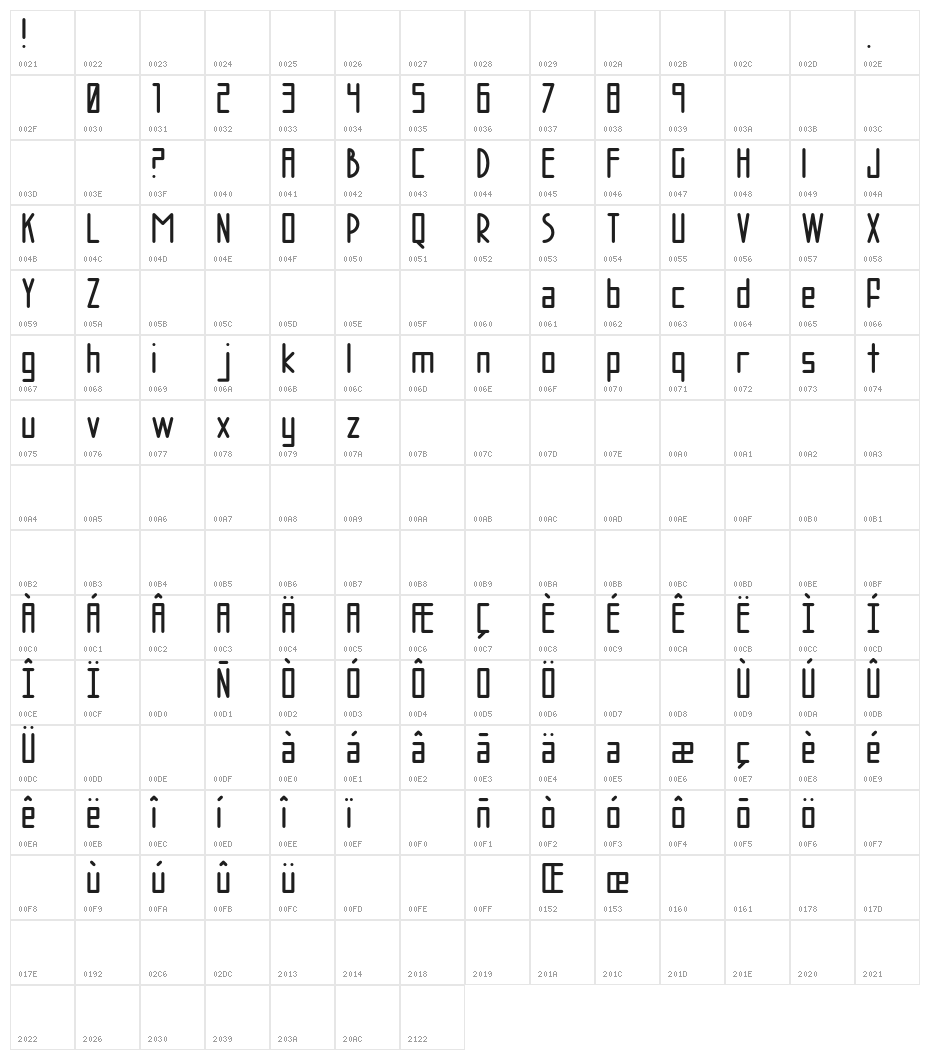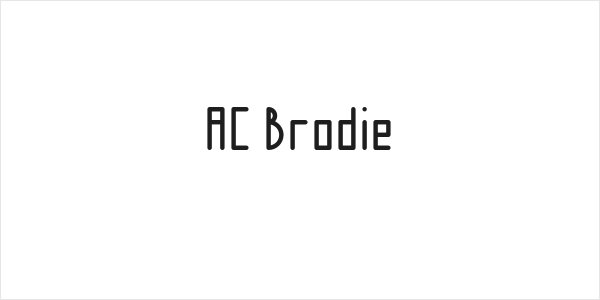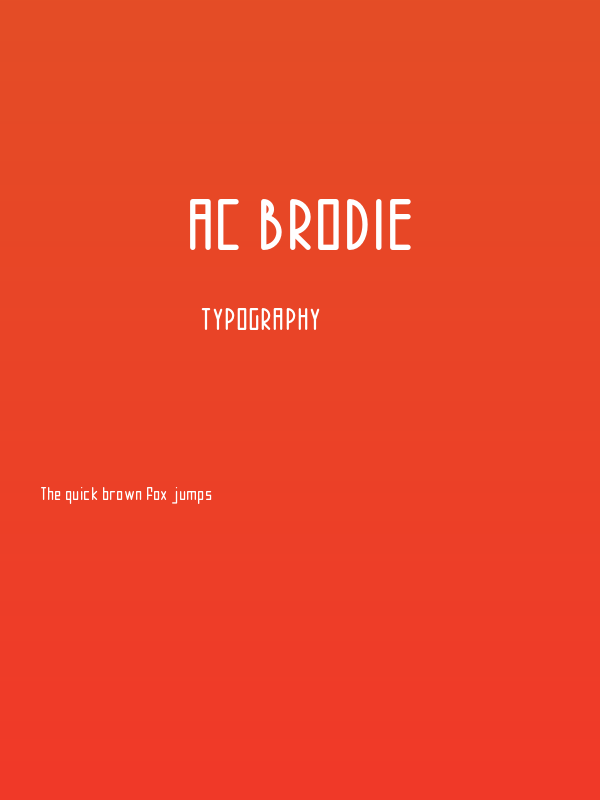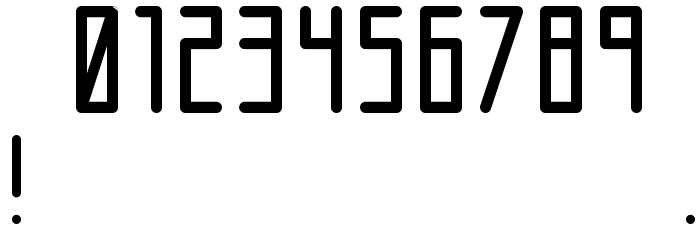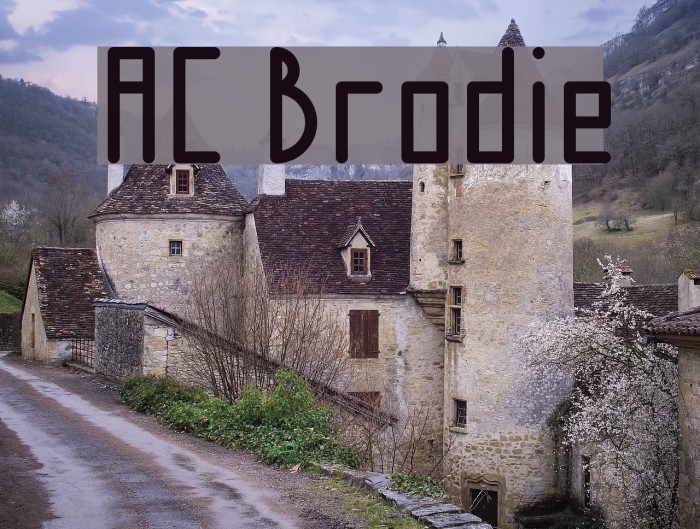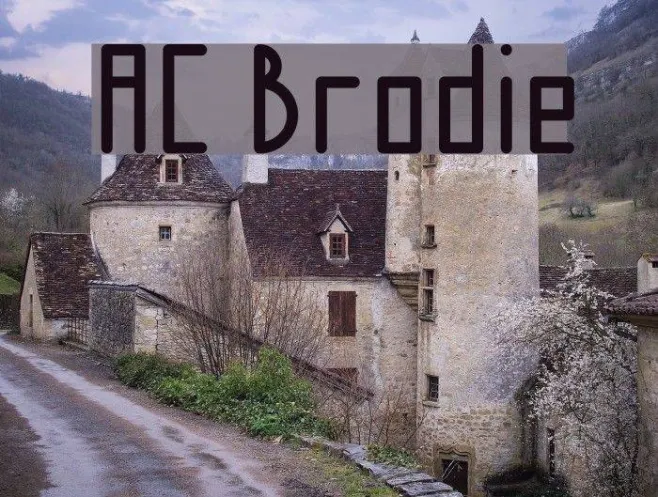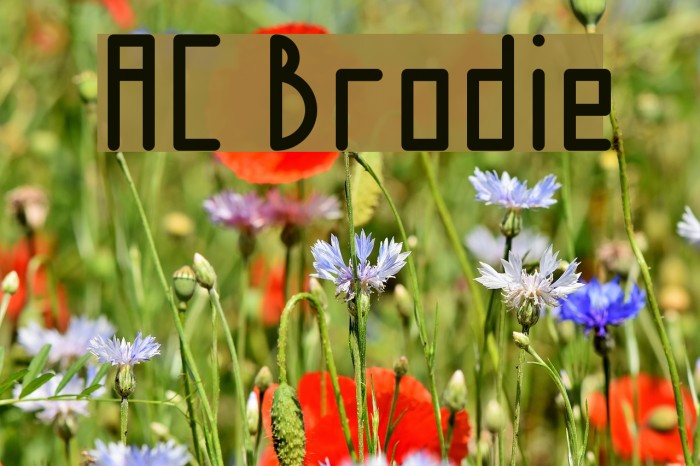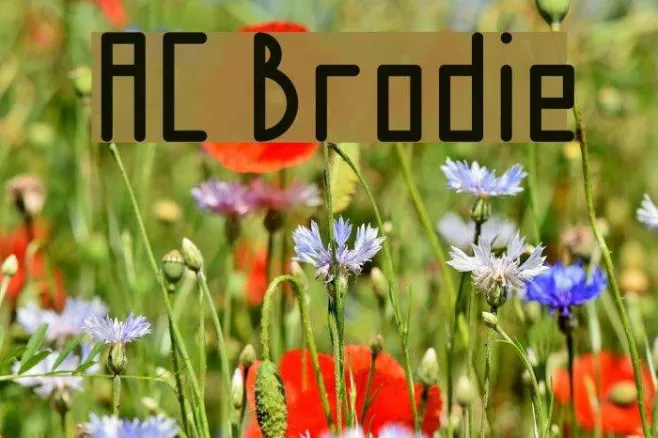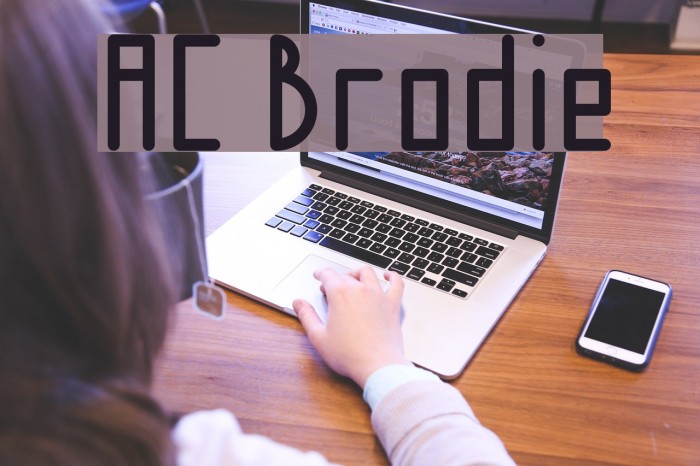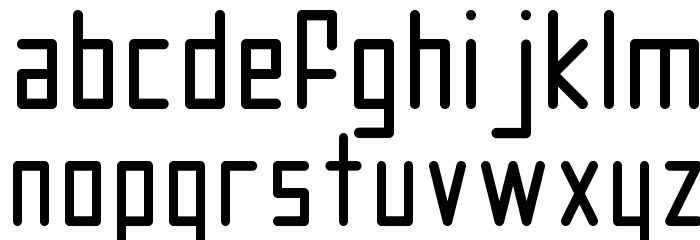
AC Brodie Font
AC Brodie Description
This font features a modern and geometric design with clean, straight lines and rounded edges. The uppercase letters are tall and narrow, while the lowercase letters maintain a consistent height, creating a uniform appearance. The numerals are distinct and easy to read, with a slightly futuristic feel. Special characters are minimalistic, complementing the overall sleek aesthetic. The font's design is both functional and stylish, making it suitable for a variety of applications where clarity and modernity are desired.
| Use Case | Headlines, Logos, Digital interfaces |
| Proposed Projects | Ideal for branding, signage, digital interfaces, and editorial design. |